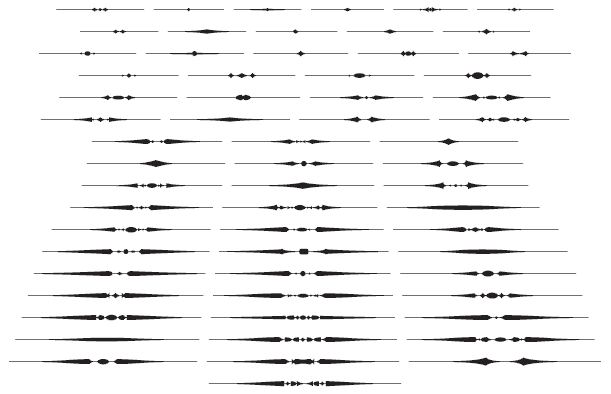
MFC Brass Rules Petit
About MFC Brass Rules Petit
Although brass line rules were a common feature in almost every vintage type catalog, these were recreated from those by the Franklin Type Foundry. Filling the Numerals and all Capital and Lowercase glyph slots are a total of 62 traditional Brass Rule…